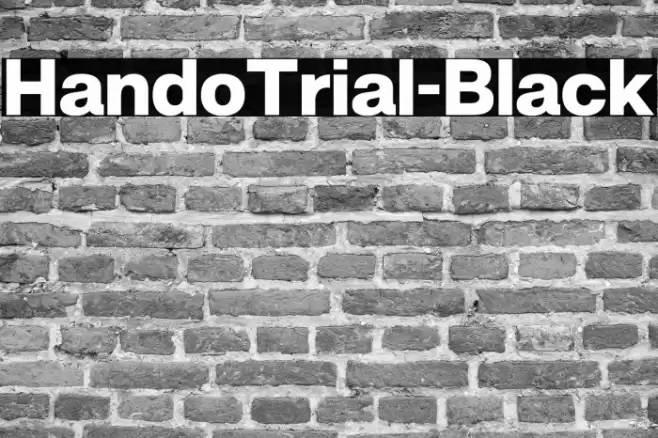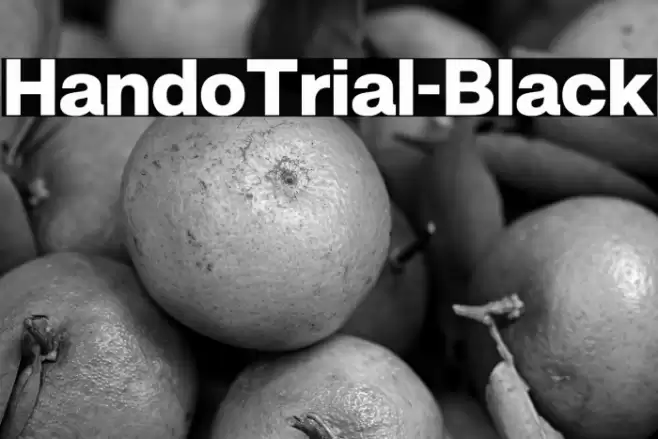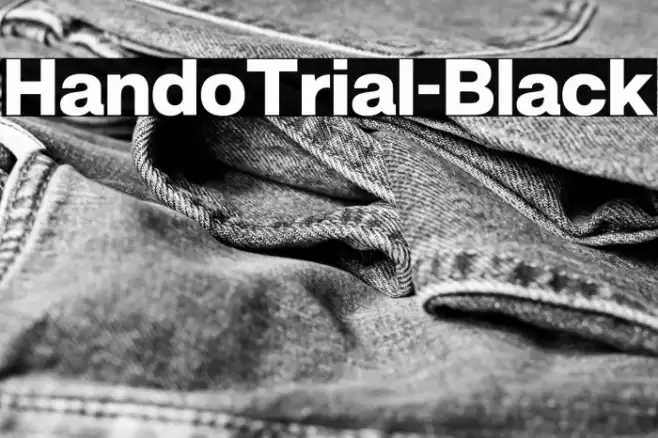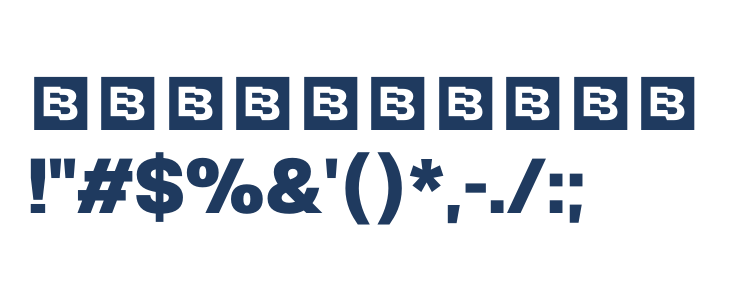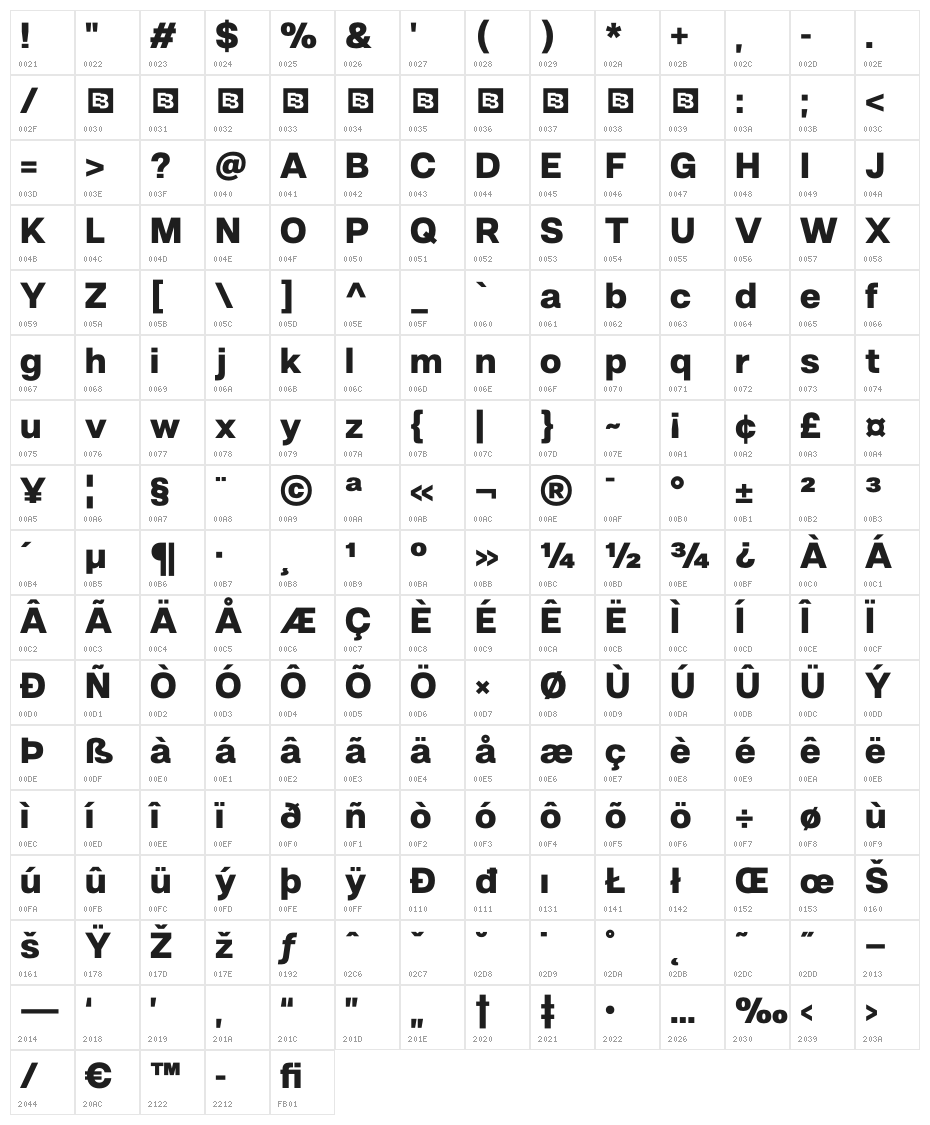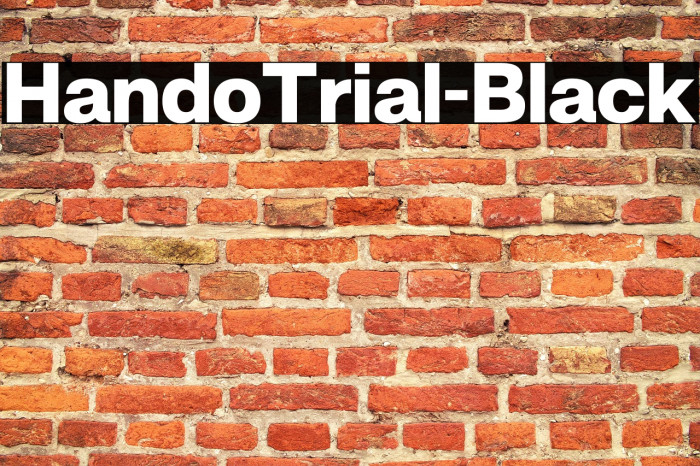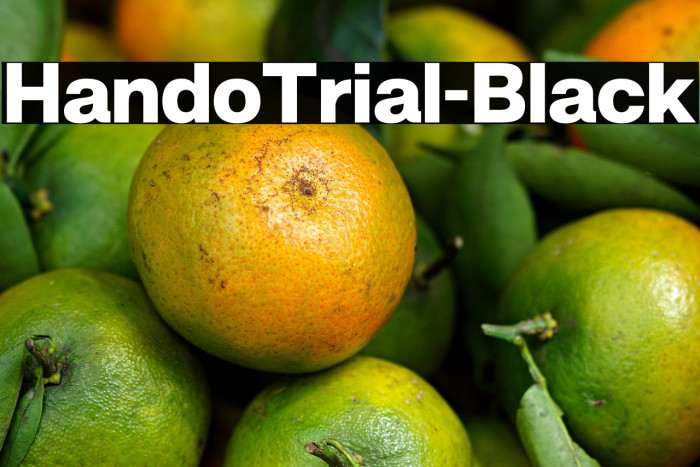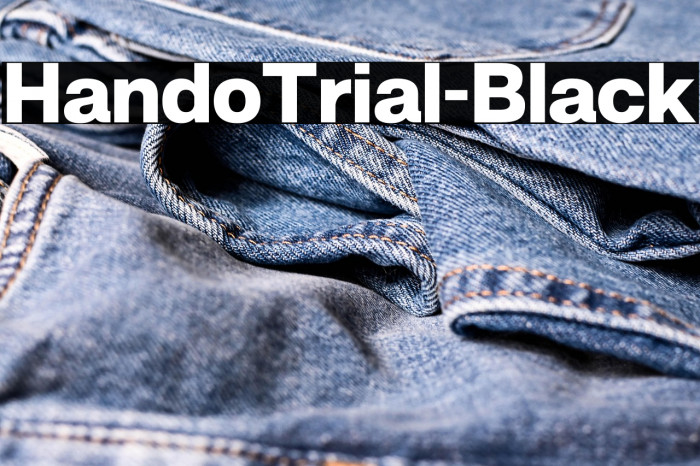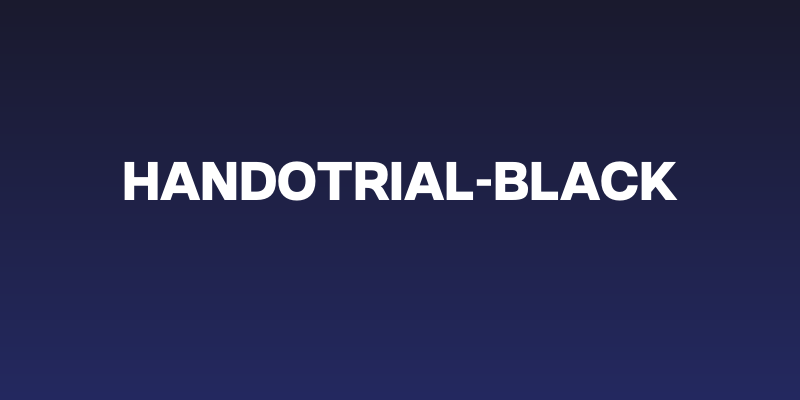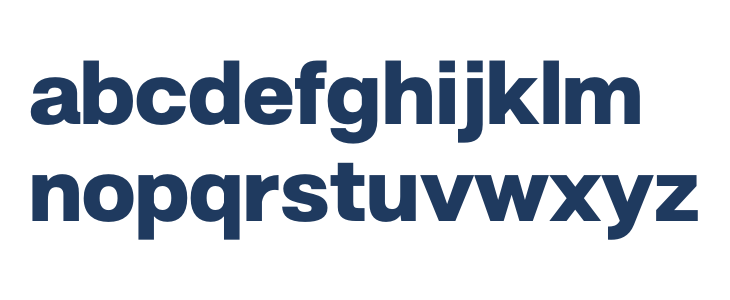
HandoTrial-Black Font
HandoTrial-Black Description
This font exhibits a bold and impactful style, characterized by thick, uniform strokes that convey strength and modernity. The uppercase and lowercase letters maintain a consistent width, creating a harmonious and balanced appearance. The numbers and special characters are designed with the same boldness, ensuring readability and emphasis. Its geometric shapes and clean lines make it suitable for contemporary design projects. The font's robust nature is ideal for making statements, whether in headlines or branding materials.
A bold, modern font with thick, uniform strokes and geometric shapes from Uncategorized fonts.
- Proposed Projects: Ideal for branding, headlines, posters, and any design requiring a strong visual impact.